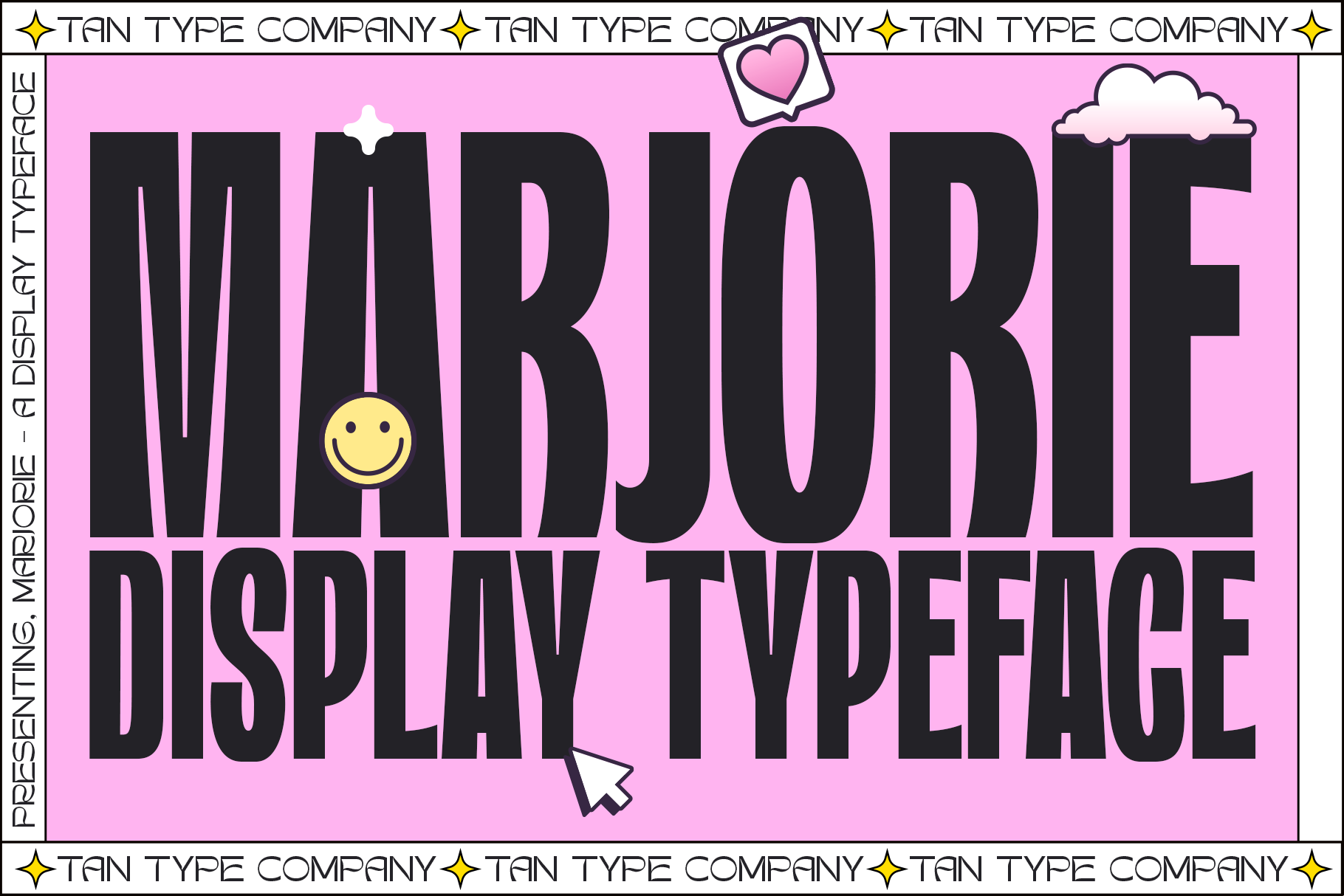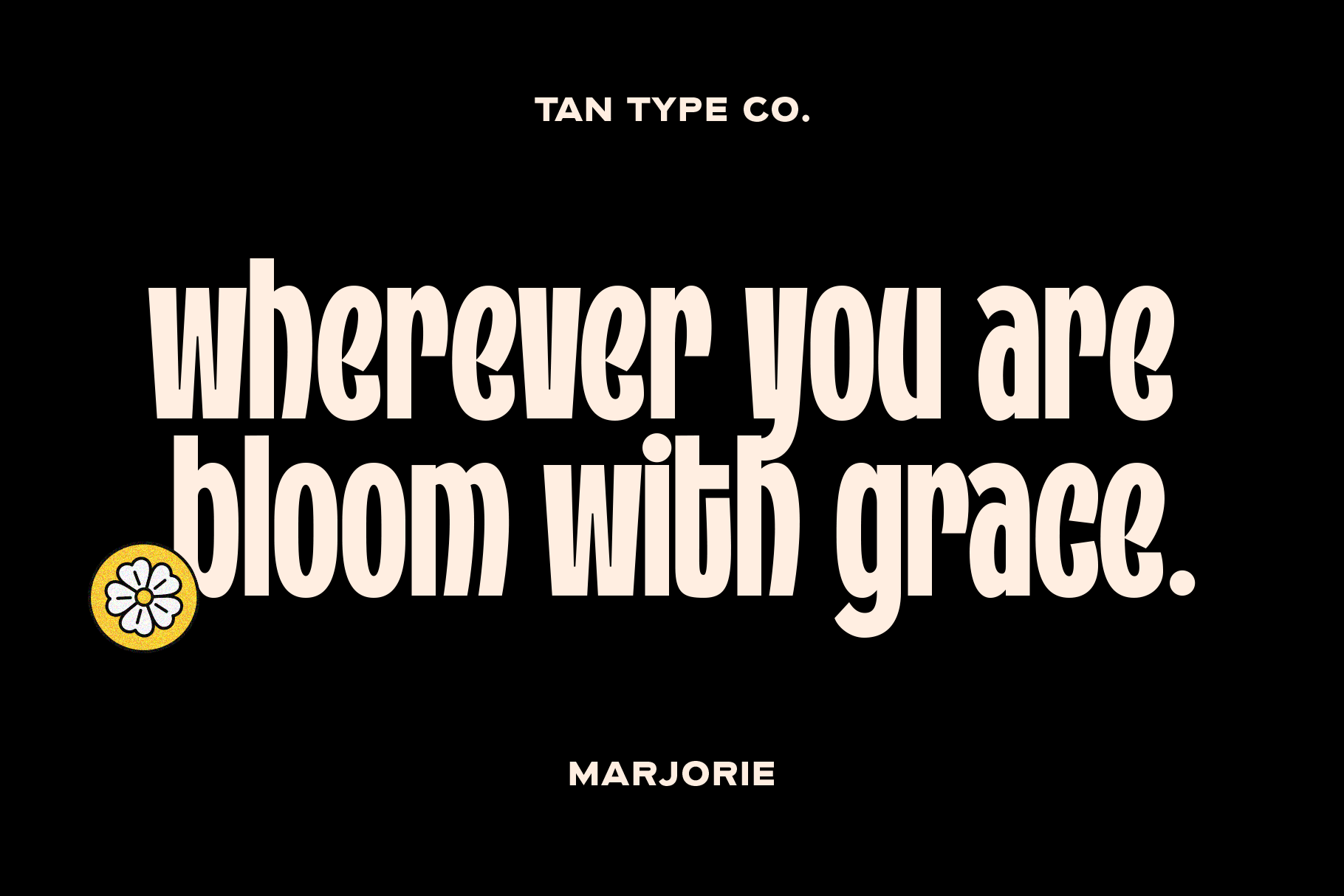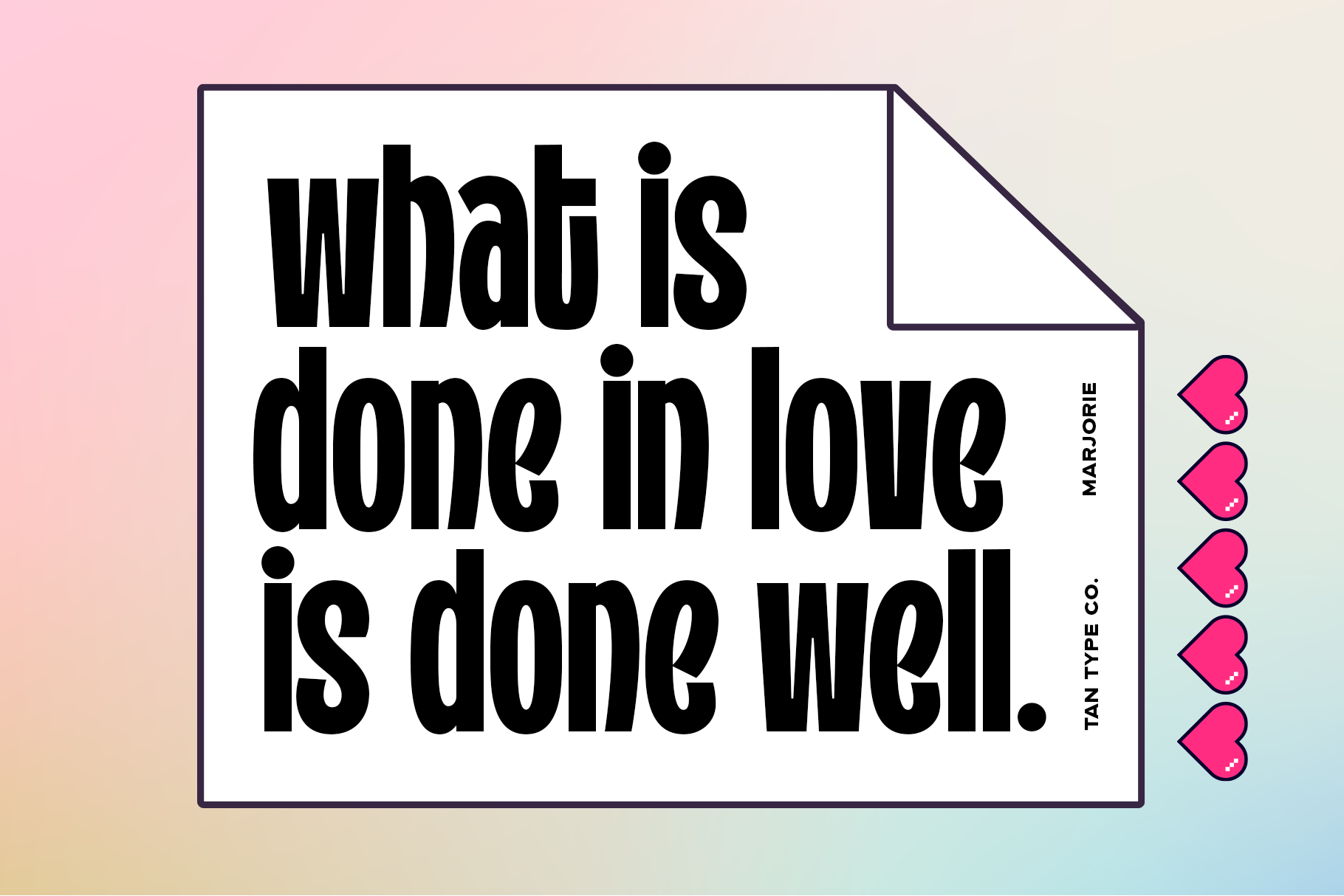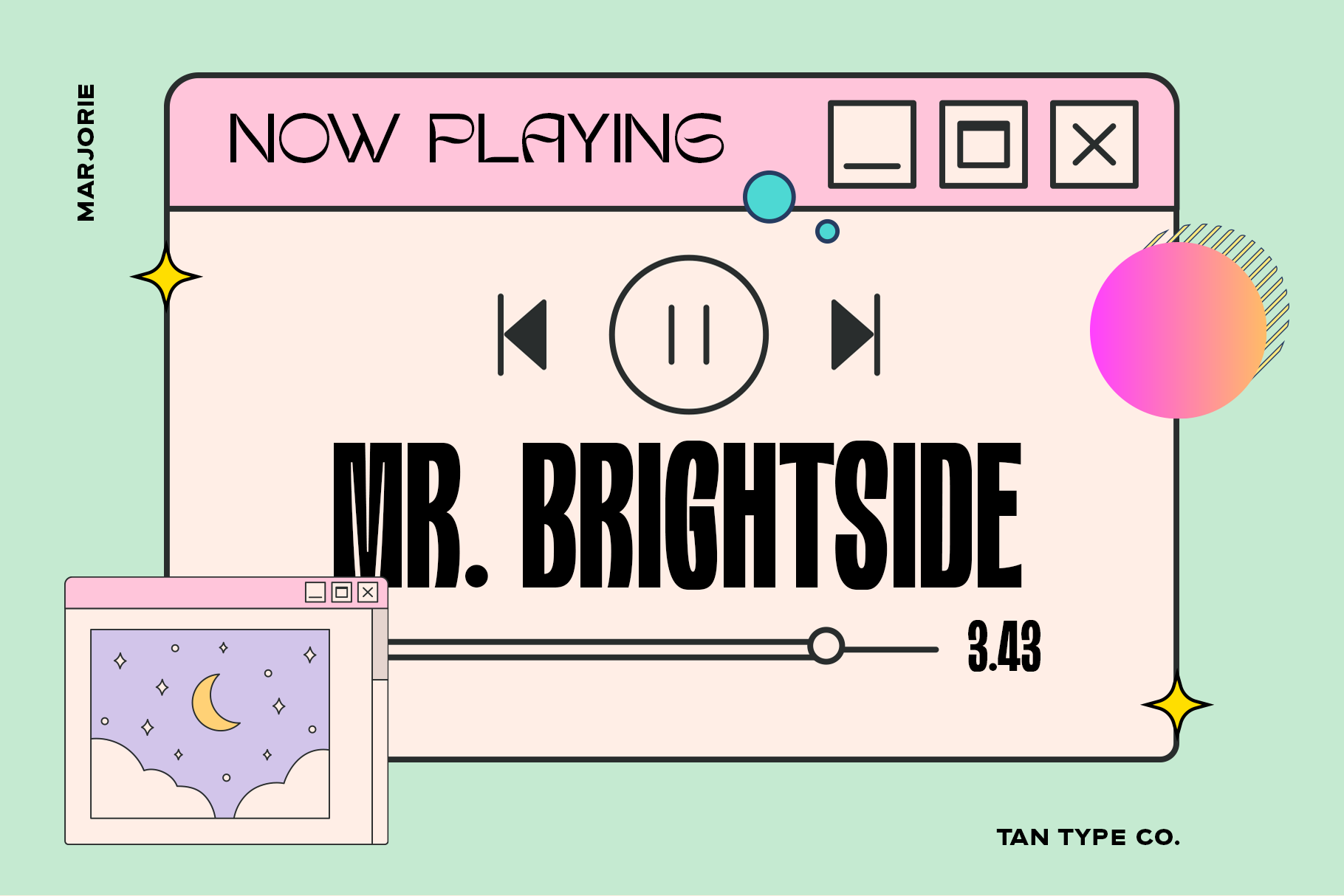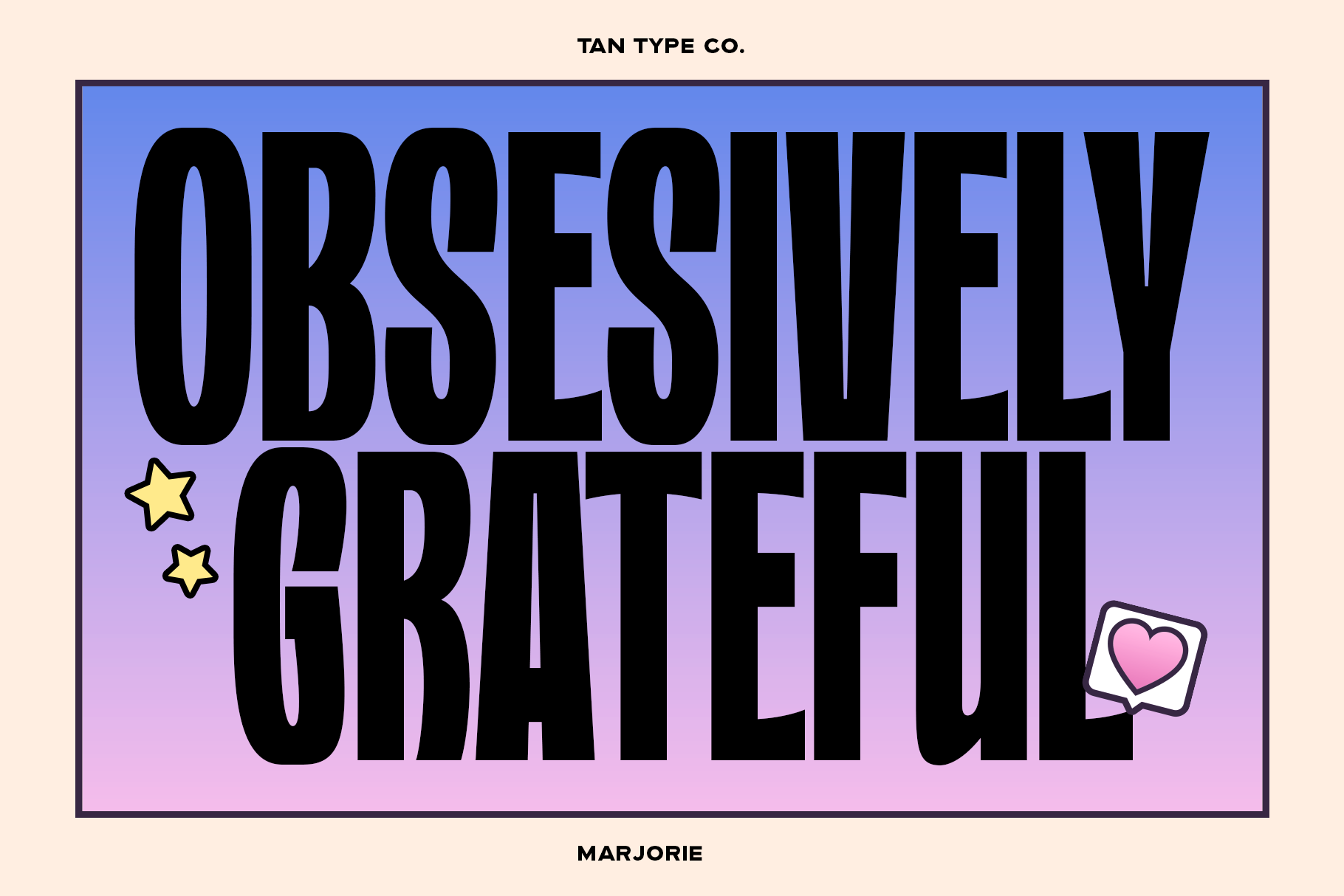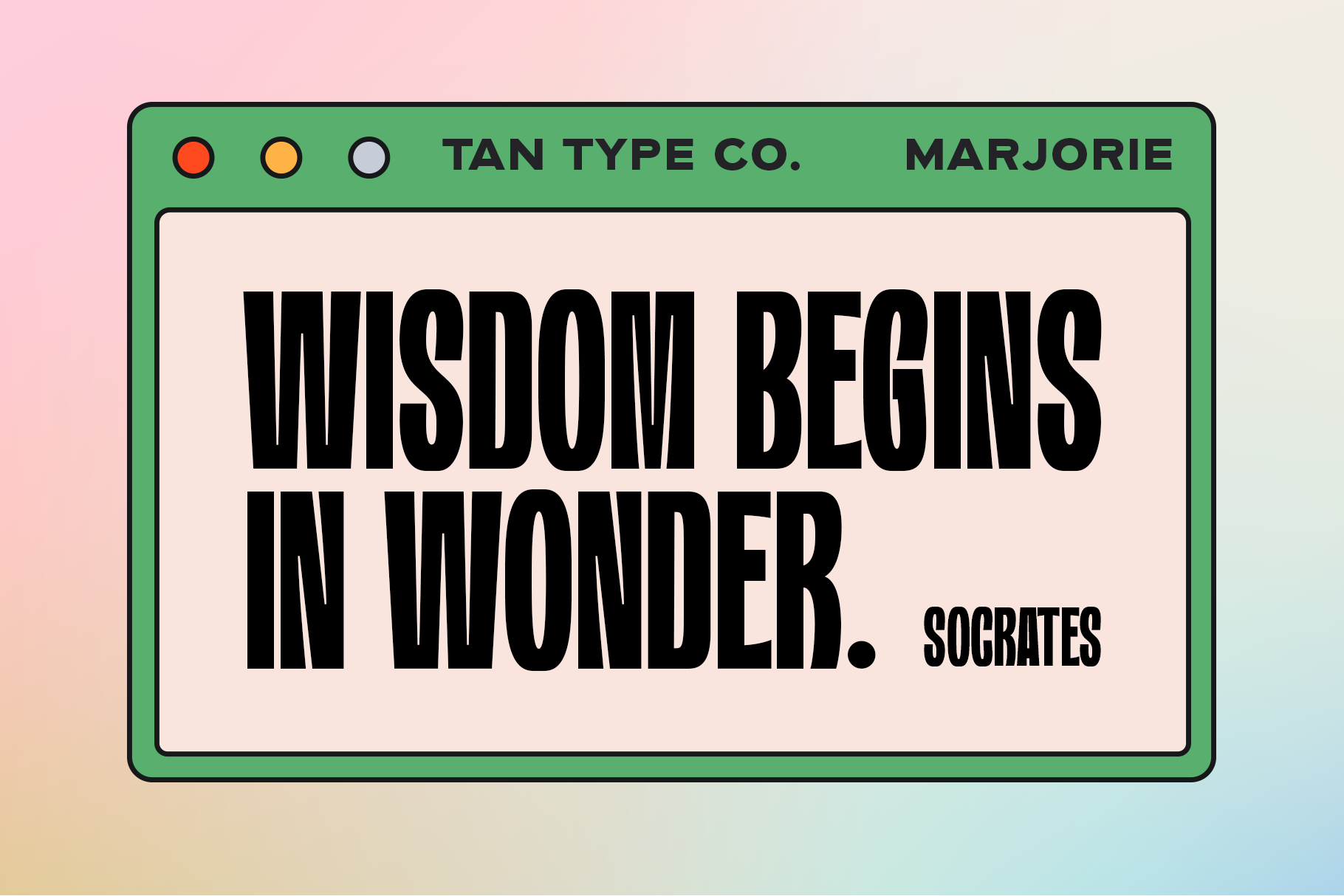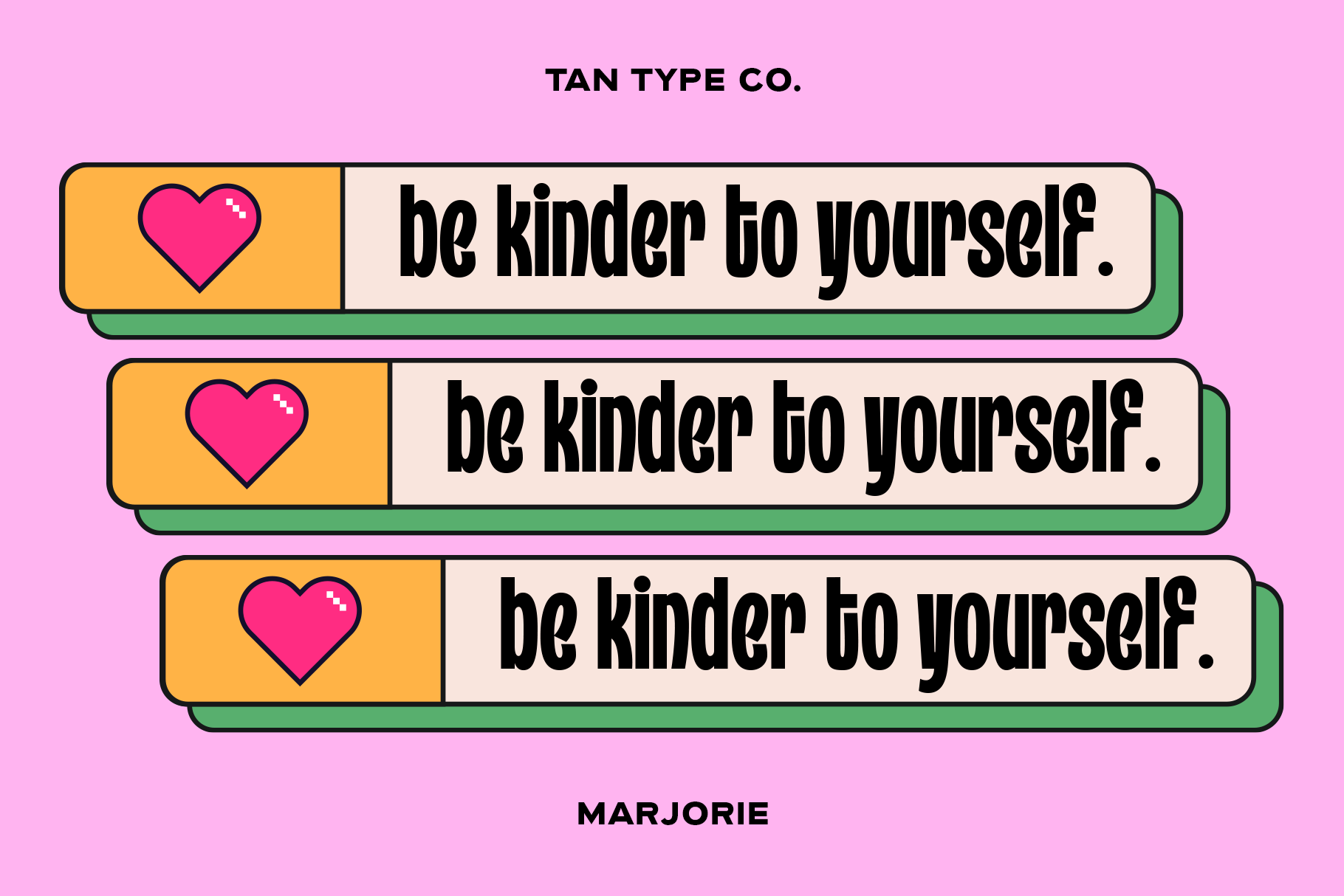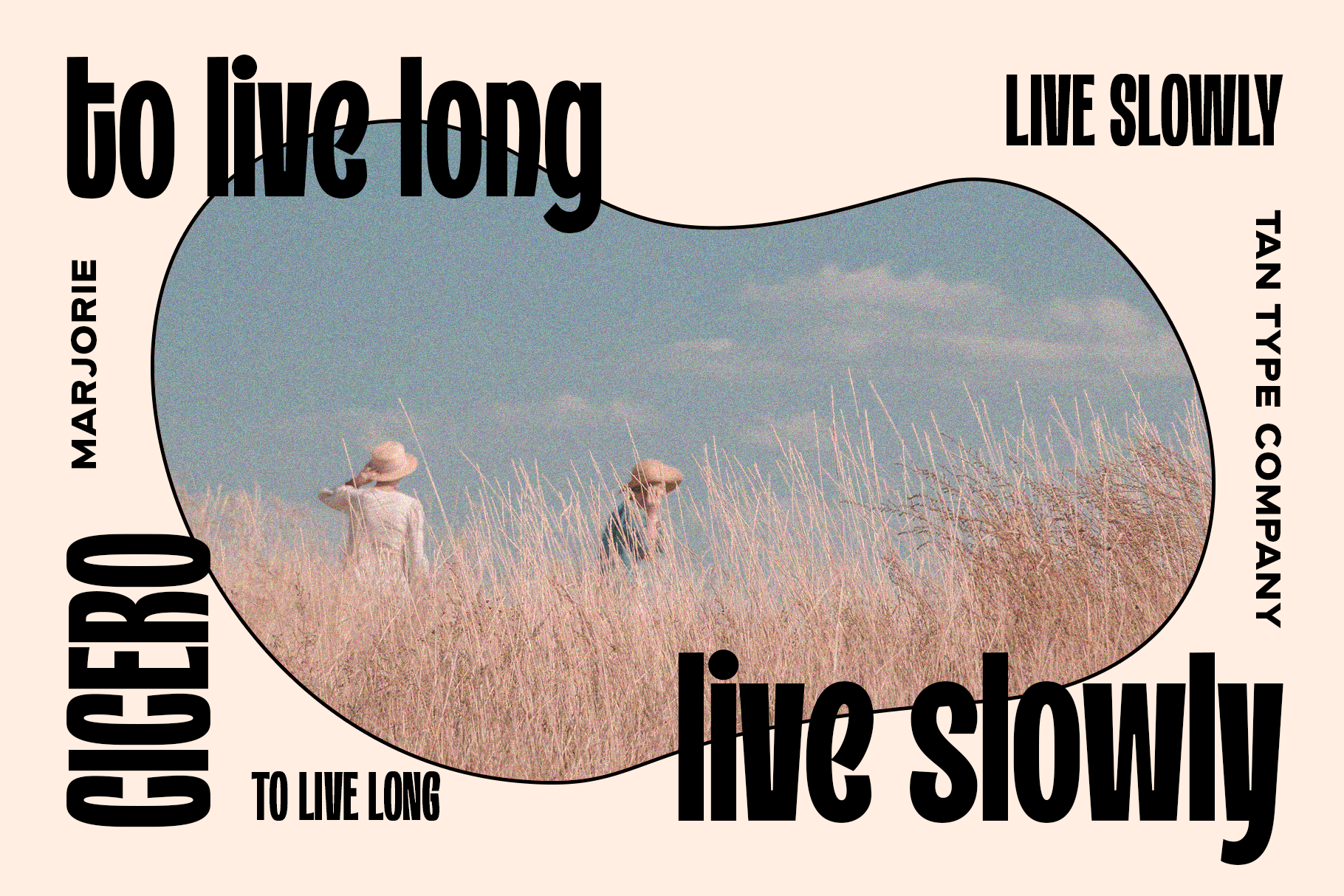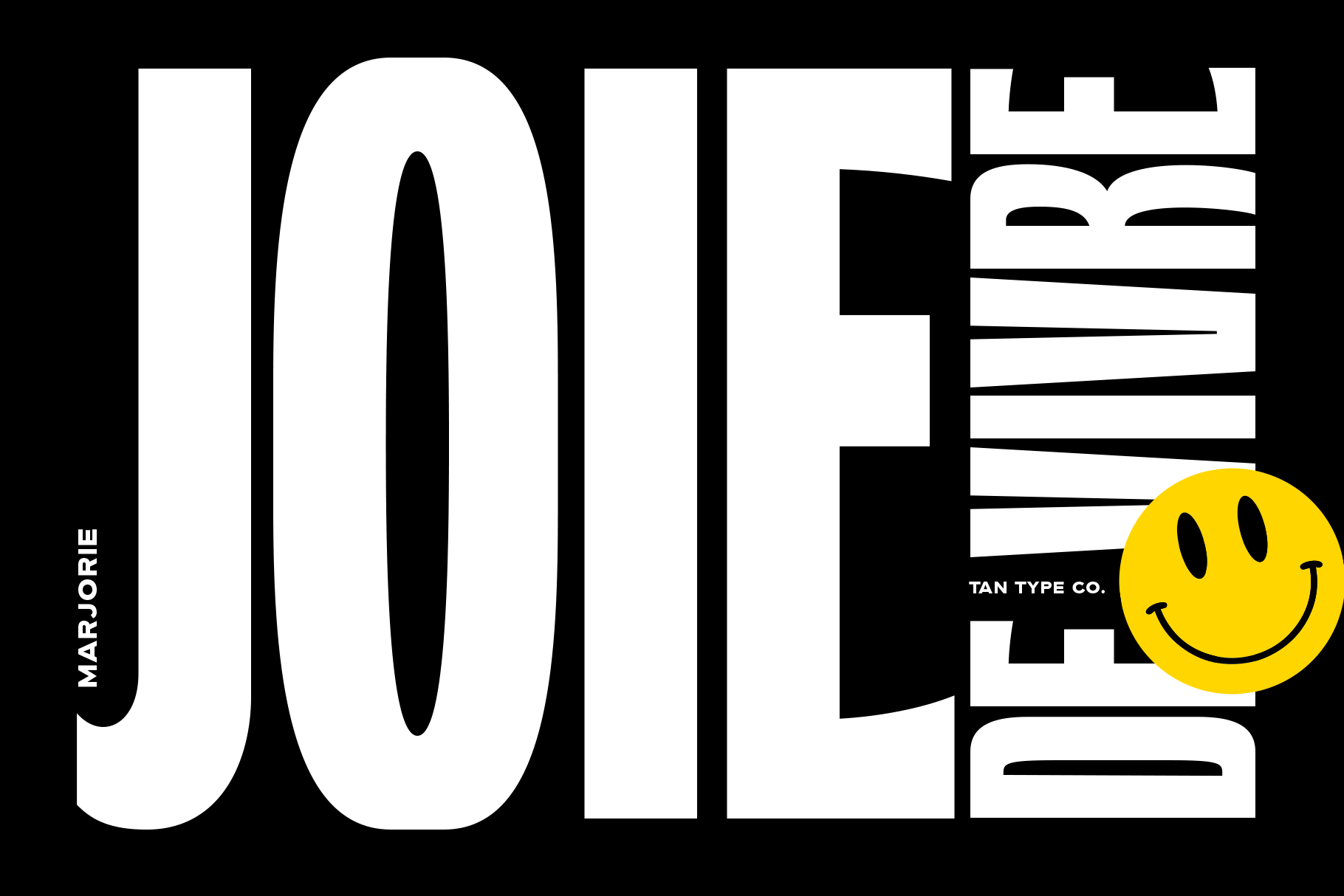
MARJORIE is a bold and bubbly display sans serif typeface with tall, condensed proportions and playful energy. Its thick strokes and smooth curves give it a fun, punchy presence that feels both retro and digital, perfect for eye-catching, feel-good typography.